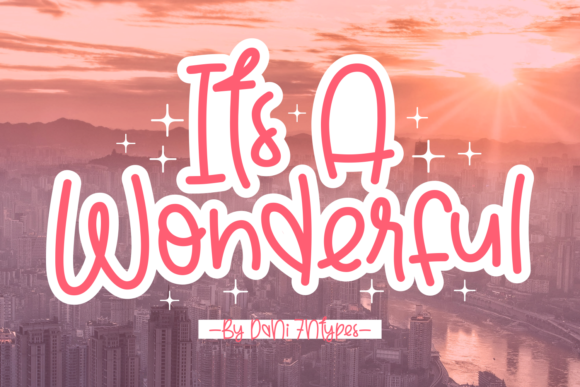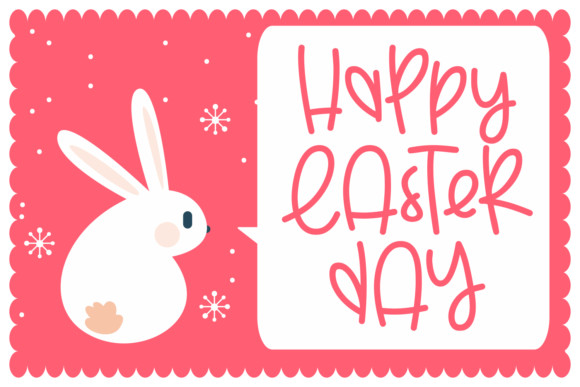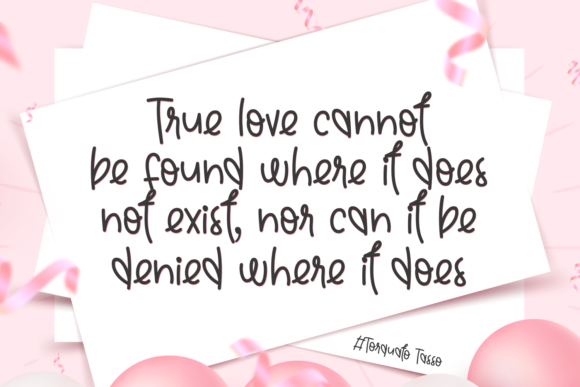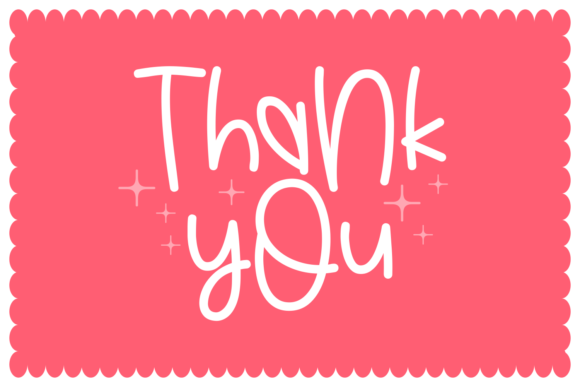
Its a Wonderful Font
About Its a Wonderful Font
Its a Wonderful is a sweet, all round and flexible handwritten font. Warm, quirky and jolly, this font will turn each of your project ideas into real works of art. Have fun with this beautiful font and explore its endless variations.